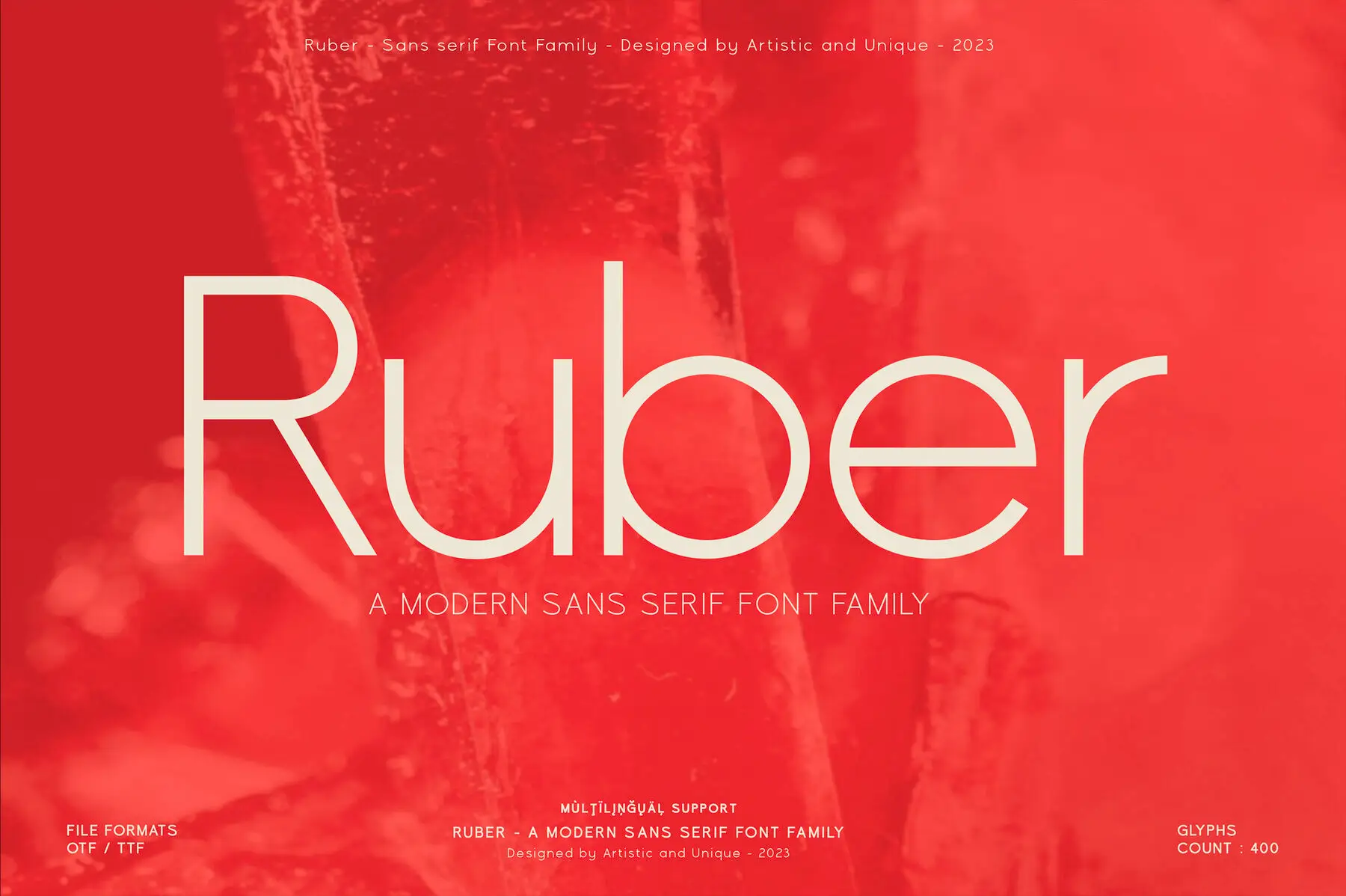
Ruber Font
The Ruber font family stands as a quintessential example of a modern geometric sans serif design. Offering 12 distinct styles with multilingual support, Ruber enables a wide variety of creative applications. Whether you need subtle body text or attention-grabbing headlines, its versatility allows for seamless integration into numerous design environments, making it a vital asset for creative professionals. The font family's modern aesthetic is particularly suited for branding endeavors. Its robust readability across different weights ensures a strong visual impact, whether it's for digital or print media. Ruber includes a comprehensive set of characters, including uppercase, lowercase, punctuation, symbols, numbers, ligatures, and multilingual characters, enhancing its practicality and functionality in diverse design scenarios.Ruber: Modern Geometric Sans Serif Font Family